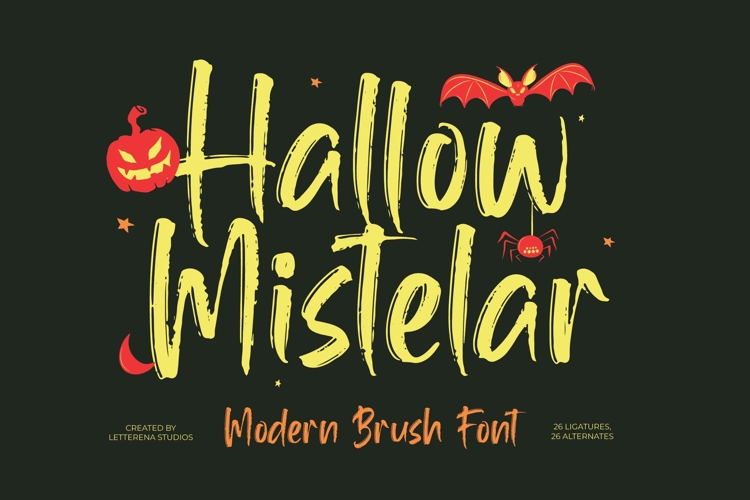
Hallow Mistelar Modern Brush Font
Hallow Mistelar - Modern Brush Font , from Letterena, is a Luxury Script font, suitable for any projects such as: logos, branding projects, homeware designs, product packaging, mugs, quotes, posters, shopping bags, t-shirts, book covers, name card, invitation cards, greeting cards, label, photography, watermark, special events, and all your other luxury and beautiful projects that need a Luxury Script taste.
26 Ligature 26 Alternate & Swashes